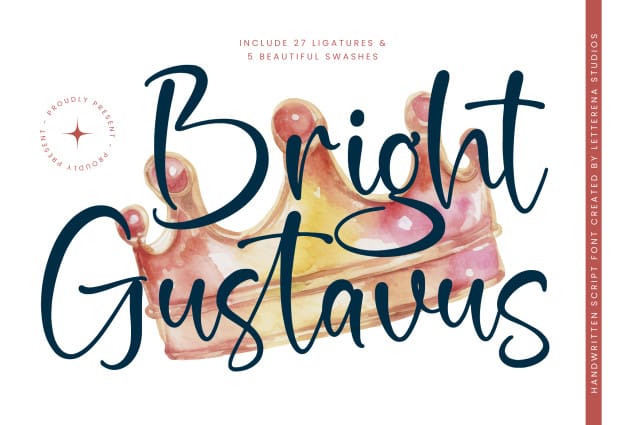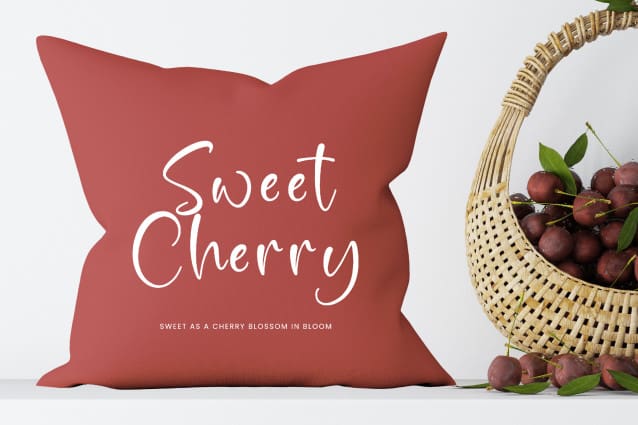
Bright Gustavus Font
Bright Gustavus Font – Handwritten Script Font , from Letterena, is a Luxury Script font, suitable for any projects such as: logos, branding projects, homeware designs, product packaging, mugs, quotes, posters, shopping bags, t-shirts, book covers, name card, invitation cards, greeting cards, label, photography, watermark, special events, and all your other luxury and beautiful projects that need a Luxury Script taste.